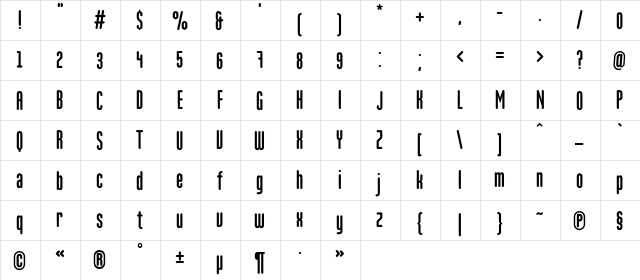
Marten Regular Font Preview
Marten Regular
Design Context for Marten Typeface
Marten offers clean, dependable letterforms without strong stylistic allegiance, making it a practical choice for designers who need flexibility.